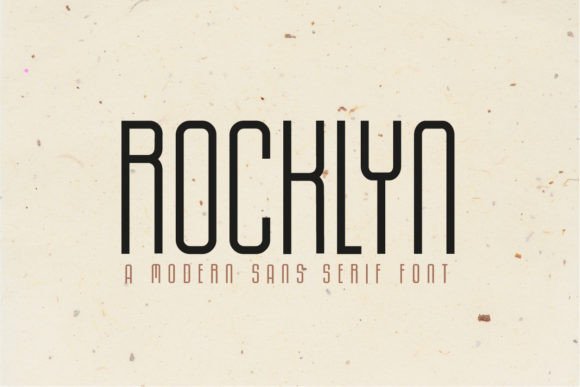
Behold, Rocklyn Font, the Sans Serif Masterpiece, a Font of Beauty and Versatility
In a world saturated with digital content, your words need a voice that captivates and commands attention. Welcome to the world of Rocklyn Font, a sans serif masterpiece that transcends the boundaries of ordinary typefaces. With its clean lines, geometric precision, and a hint of playful charm, Rocklyn transforms your text into an artistic expression, a visual symphony that dances across the screen.
Unlock the creative potential hidden within your words with Rocklyn. Craft headlines that demand attention, invitations that exude elegance, and logos that leave a lasting impression. Let Rocklyn's versatility unleash your imagination, empower your storytelling, and forge an unforgettable connection with your audience.
Step into a realm of design possibilities where elegance meets innovation. Rocklyn Font is the perfect companion for those seeking to elevate their creations beyond the mundane. Its crisp edges and dynamic curves create a visual allure that captivates and inspires, making every word a work of art.
Experience the transformative power of Rocklyn, a font that brings life to your designs. Whether you're a seasoned graphic artist or just starting your creative journey, Rocklyn's intuitive essence makes it a joy to use. Unleash the boundless potential within your imagination and watch as your visions manifest into stunning realities.
Don't settle for ordinary fonts that fade into the background. Embrace the power of Rocklyn, the font that commands attention, ignites emotions, and leaves an indelible mark on the hearts and minds of your audience. Join the ranks of creative visionaries who have discovered the transformative power of Rocklyn and elevate your designs to new heights of brilliance.